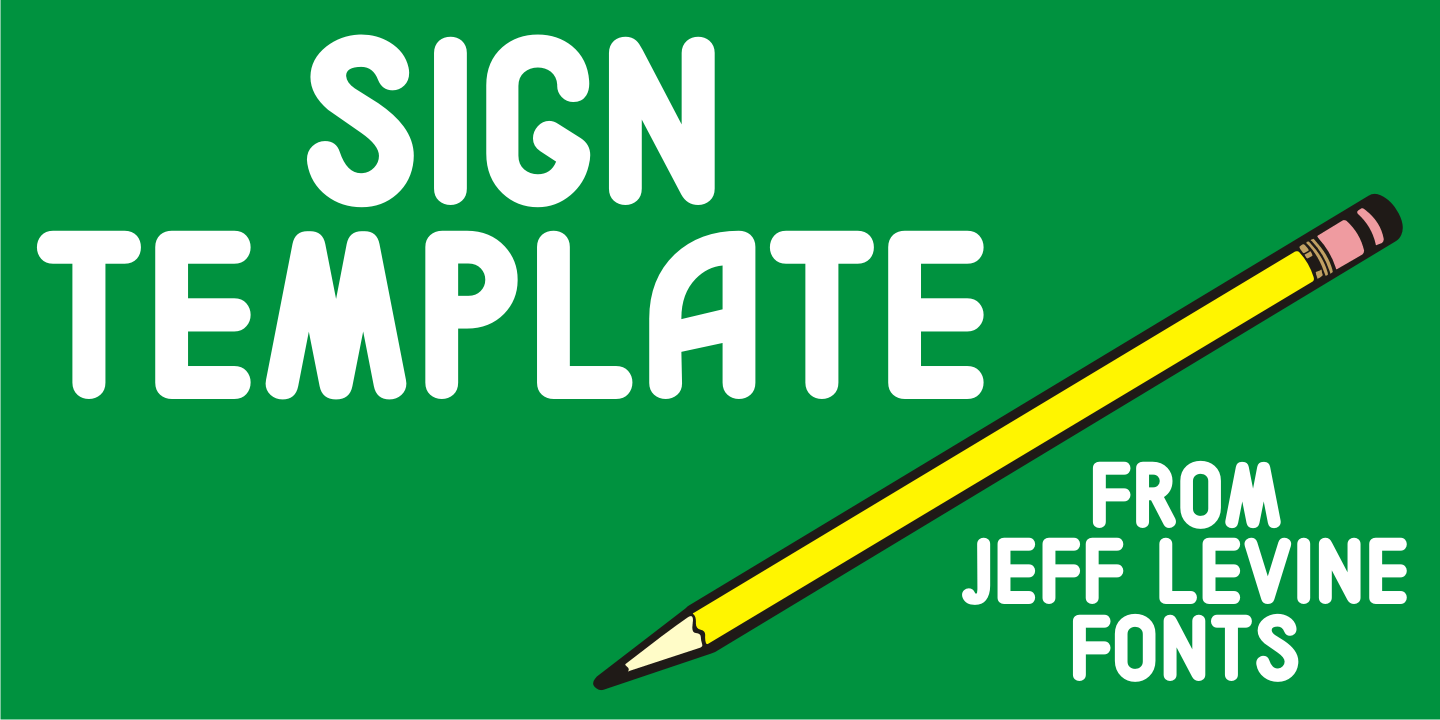
Sign Template
Sign Template JNL is based on one of the many plastic lettering guides manufactured by the now-defunct Wright-Regan Instrument Company (also known as WRICO).
Aside from their engineering and drafting templates and tools, WRICO had a line of 'Sign-Maker' sets which featured various styles of lettering, special ink pens and metal alignment guides to assure clean, crisp lettering with little effort.